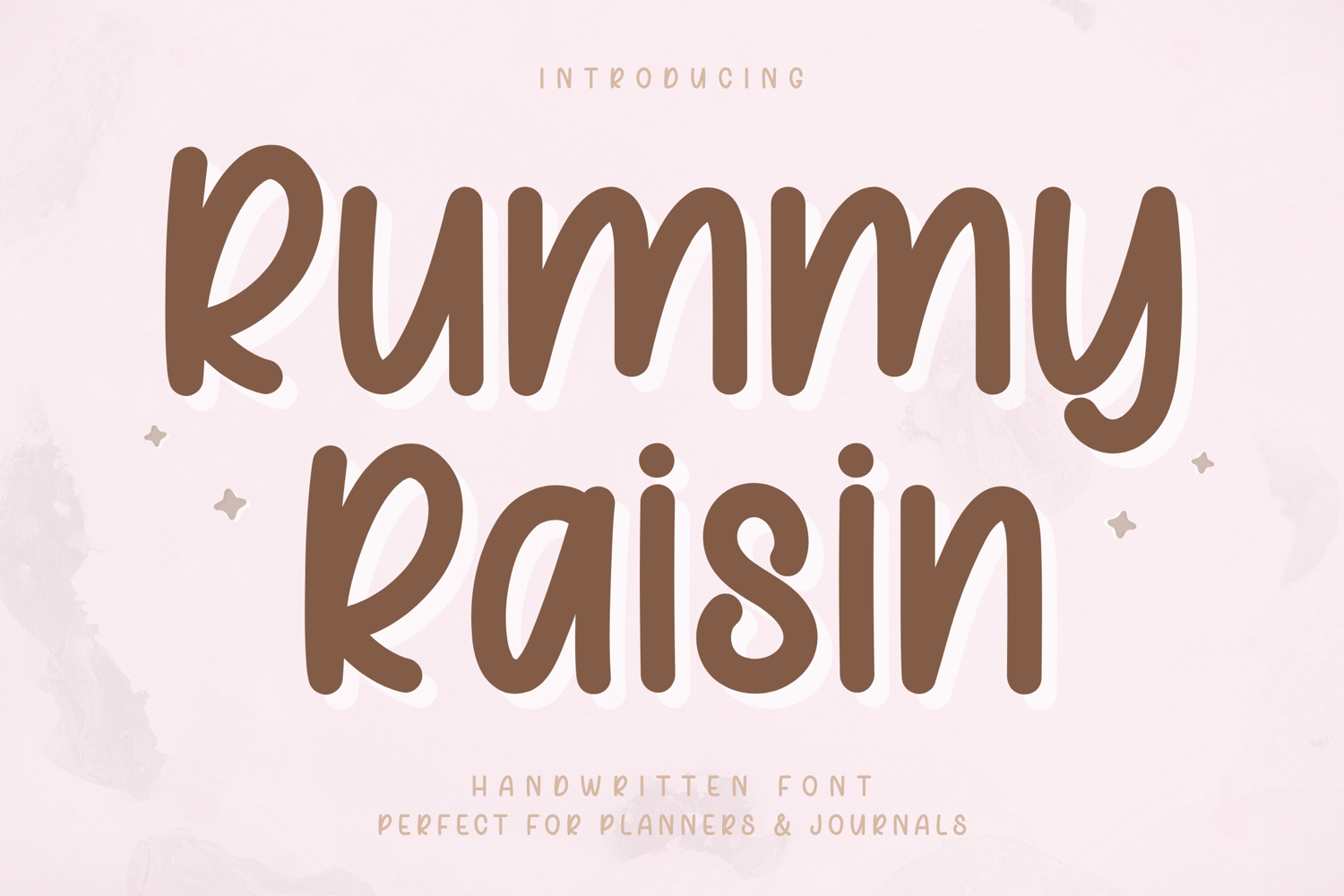
Rummy Raisin - Handwritten Font
Rummy Raisin – Handwritten Font
Rummy Raisin is a clean and friendly handwritten font designed to bring a soft and organized feel to your creative projects. With its smooth curves and simple letterforms, this font offers a natural handwritten look while maintaining excellent clarity and readability.
Carefully crafted with usability in mind, Rummy Raisin performs beautifully across a variety of applications—from digital planners and journals to Cricut projects, stickers, and social media design. Its neat and consistent strokes make it especially suitable for note-taking, planning, and everyday creative use.
Rummy Raisin is designed with smooth, clean strokes and balanced spacing, making it easy to read and comfortable for long-form use.